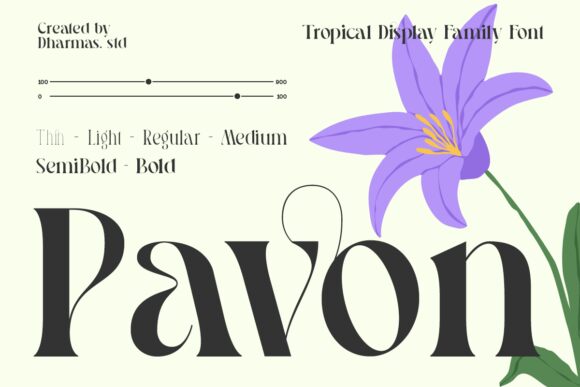
Pavon Bold, a captivating display font from the Pavon family, exudes retro-inspired elegance with its refined serif design. This typeface is created by Dharmas Studio to combine timeless charm and contemporary flair in it making it versatile for several designs. Bold strokes and unique character shapes make for an eye catcher while subtle vintage undertones remind of yesteryears and sophistication.
With attention grabbing headlines, impactful branding, and sophisticated editorial layouts, Pavon Bold’s striking aesthetic lends itself perfectly. Its robust presence and unique personality make it a great choice for logo design, poster art or any eye-catching display work. Whether used on its own or in combination with other complementary fonts, Pavon bold continuously offers visually stunning impressions that remain unforgettable.